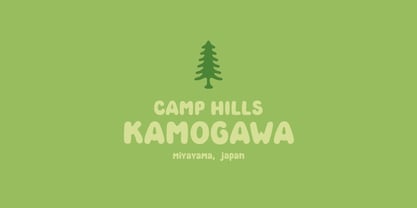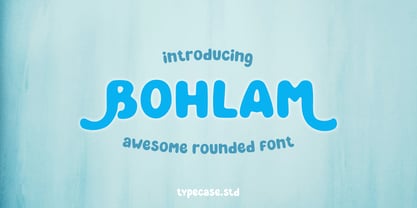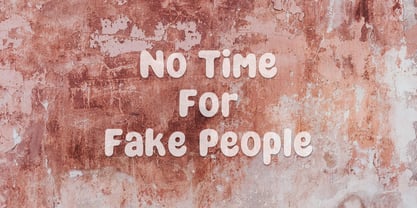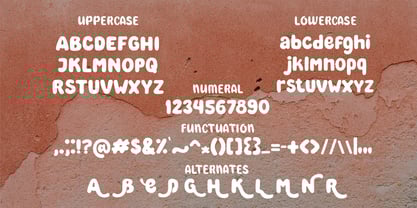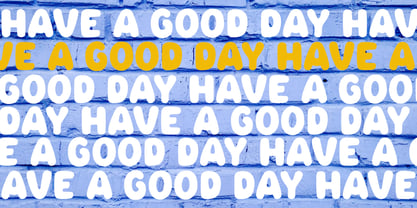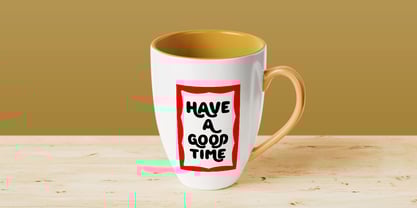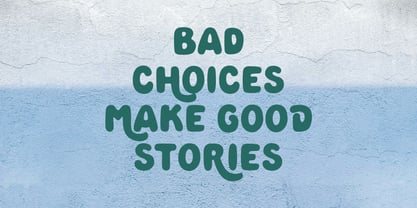
Bohlam
by TypeCase.std
The Bohlam Font Family was designed by Aldi Wangsadipa, ALDI RAMDAN and published by TypeCase.std. Bohlam contains 1 styles.
Bohlam font is a hand-drawn bubble font with smooth edges. With an organic look, this font will make your designs stand out yet remain human.
You can use this font for various purposes, such as posters, stickers, quotes, or even for your branding. With different lowercase and uppercase letters, you can use both together in one word to make your project look more handmade.
The special thing about this font is, there are many alternatives that you can use. In addition, this font includes several icons and underlines that you can access from the glyph panel in your design software.
Bohlam font also supports multiple languages!